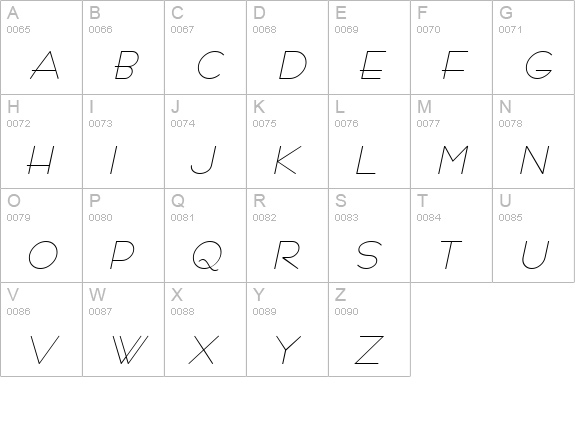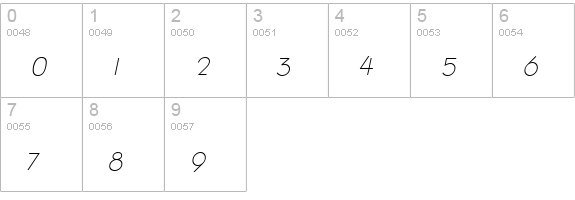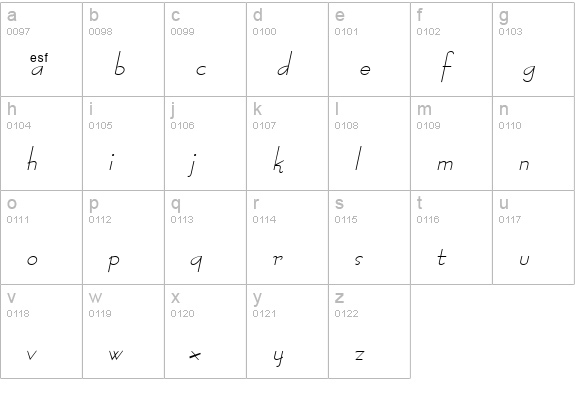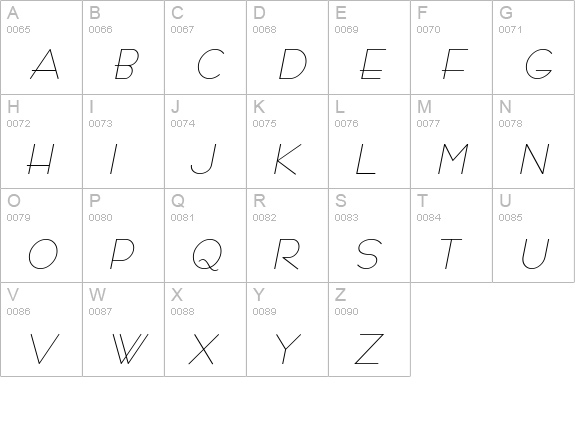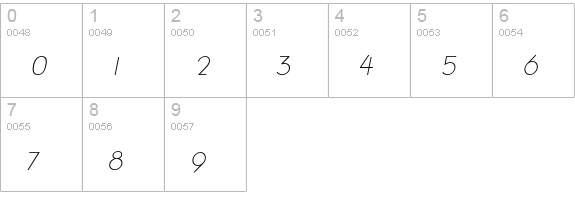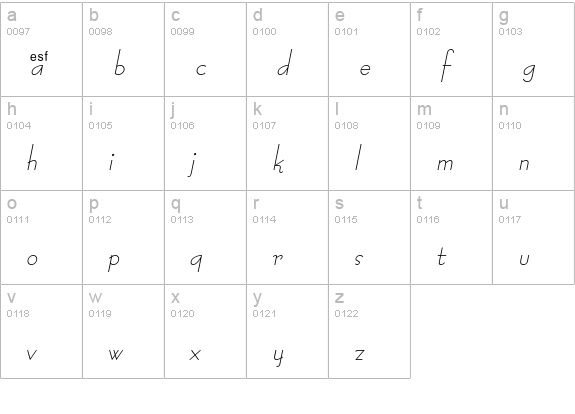
Ramose Oblique Font Details
Ramose Oblique is a distinctive, italic variant in the Ramose typeface family \xE2\x80\x94 well suited to design and typography projects.
Ramose Oblique is a truly captivating and versatile font that effortlessly combines elegance with a touch of modernity. Its unique oblique design adds a subtle slant to its already sleek and sophisticated letterforms, creating a sense of movement and dynamism. With its clean lines, balanced proportions, and flawless curves, Ramose Oblique is perfect for a wide range of design projects. Whether you're creating a logo, designing a website, or crafting eye-catching headlines, this font will add a touch of class and professionalism to your work. What sets Ramose Oblique apart is not just its stunning aesthetics, but also the fact that it is available for free. Yes, you read that right! This incredible font can be freely downloaded at FontsMarket.com, giving you the opportunity to enhance your designs without breaking the bank. With its generous character set, Ramose Oblique offers support for multiple languages, making it truly accessible to designers from all around the world. Its extensive range of uppercase and lowercase letters, numbers, punctuation marks, and symbols ensure that you have all the tools you need to express your creativity and bring your ideas to life. Whether you're a professional designer or an aspiring artist, Ramose Oblique is a font that will inspire and empower you to create beautiful and impactful designs. Its timeless appeal, combined with its free availability, makes it a must-have addition to your font collection. So why wait? Experience the beauty and versatility of Ramose Oblique today by downloading it for free at FontsMarket.com. Unleash your creativity and let this font elevate your designs to new heights.